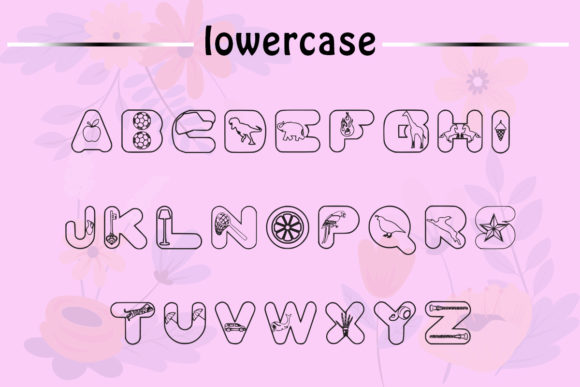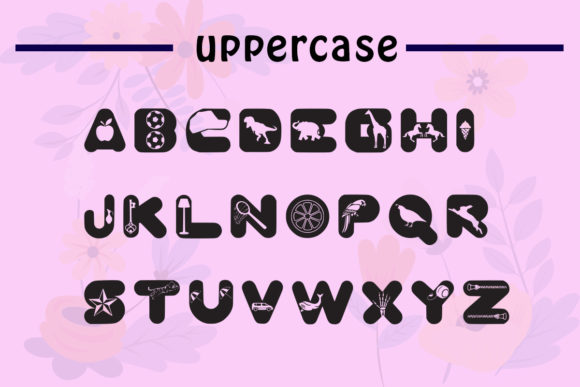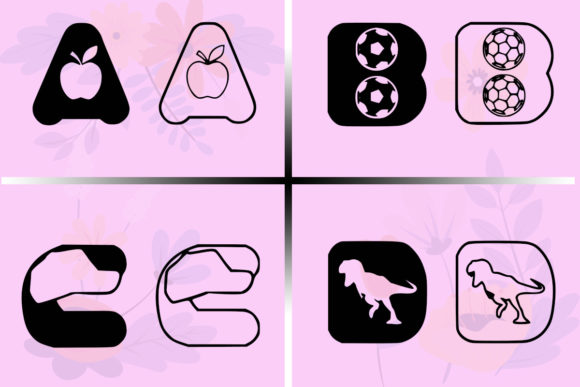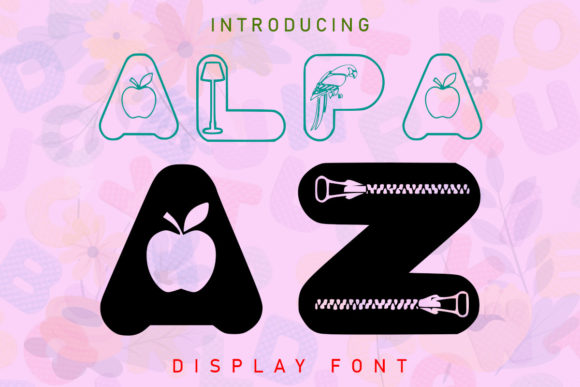
Discover the Fun and Unique Alpa AZ Font for Kids’ Designs
Are you searching for a font that will add a touch of excitement and modernity to your kids’ designs? Look no further! You’re now at the right place. Alpa AZ Font is here to revolutionize the way you create fun and engaging designs for kids. Whether you’re a designer, teacher, or parent, this font is perfect for kids’ crafts and school projects.
What Makes Alpa AZ Font So Special?
Alpa AZ Font is a cool, uniquely shaped, and interesting decorative font that will make your designs stand out. Its modern and fun design makes it perfect for kids’ projects, crafts, and activities. The font’s unique shape and style will add a fresh and playful touch to any design, making it a great choice for kids’ materials.
Perfect for Kids’ Crafts and School Projects
Alpa AZ Font is specifically designed to make kids’ crafts and school projects more engaging and fun. The font’s playful style is perfect for:
- Kids’ worksheets and activity sheets
- Handmade cards and invitations
- School posters and banners
- Craft projects and DIY activities
- Kids’ book titles and covers
Why Choose Alpa AZ Font?
There are many reasons why Alpa AZ Font is the perfect choice for kids’ designs:
- Unique and Modern Design: Alpa AZ Font has a fresh and modern design that will make your kids’ designs stand out.
- Easy to Read: The font is clear and easy to read, making it perfect for kids’ materials.
- Fun and Playful: The font’s playful style will add a touch of fun and excitement to any design.
- Versatile: Alpa AZ Font can be used for a wide range of kids’ projects and activities.
Here are some tips for using Alpa AZ Font:
- Pair it with Other Fonts: Alpa AZ Font looks great when paired with other fonts. Try pairing it with a bold font for headings and a clean font for body text.
- Use it for Titles and Headings: Alpa AZ Font is perfect for titles and headings. Use it to add a touch of fun and excitement to your kids’ designs.
- Experiment with Colors: Alpa AZ Font looks great in a variety of colors. Experiment with different colors to find the perfect one for your design.
Alpa AZ Font is a fun and unique font that’s perfect for kids’ designs. Its modern and playful style makes it ideal for kids’ crafts and school projects. Whether you’re a designer, teacher, or parent, this font is a great choice for anyone looking to add a touch of excitement and fun to their kids’ designs.